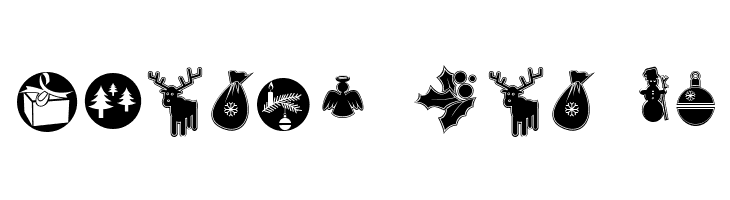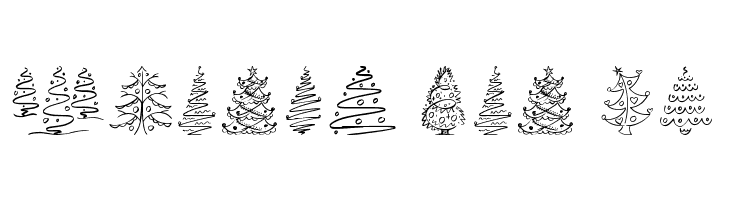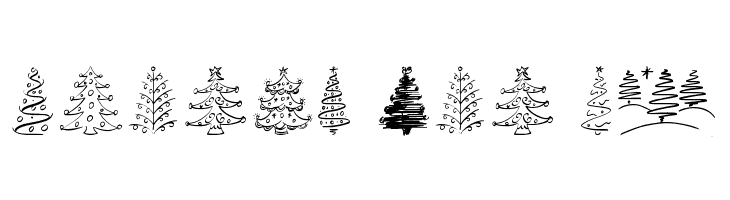
Ornamental font with detailed Christmas wreath illustrations.
A festive icon set with diverse Christmas motifs in a decorative style.
A festive, cursive font with elegant loops and swirls, perfect for holiday themes.
A festive, decorative font with holiday-themed embellishments.
A festive, cursive font with elegant loops and swirls, perfect for holiday themes.
A festive, ornament-adorned font perfect for holiday projects.
Hand-drawn Christmas doodle icon set.
A playful and festive font with bold, curvaceous letters perfect for holiday themes.
A festive, playful font with gift box icons, perfect for holiday themes.
A festive, decorative font with star patterns and hat-like accents on uppercase letters.
A festive handwritten script font with snowflake accents, perfect for holiday designs.
Hand-drawn Christmas doodle icon set.
Hand-drawn doodle font with Christmas and holiday illustrations.
A festive, flowing script font perfect for holiday-themed designs.
A bold, decorative font with holly leaf accents, perfect for festive designs.
A festive cursive script with Christmas tree decorations, ideal for holiday themes.
A festive script font with Christmas tree motifs on uppercase letters and numbers.
A festive, decorative font with star embellishments and Christmas symbols.
A festive, hand-drawn font styled like Christmas light bulbs.
Playful, bold Christmas-themed decorative symbol set.
A bold, festive display font with cloud or snow accents.
Festive, ornament-themed decorative font with a handwritten touch.
Bold, bubbly font with snow-topped letters for festive themes.
Festive, decorative display font with snowflake accents.
Bold, festive display font with snow-covered letters.
Festive, hand-drawn display font with Christmas motifs and bold outlines.
A decorative, festive script font with elegant swashes and high contrast.
Bold, festive display font with jagged, winter-inspired cutouts.
A festive serif font with snowflake embellishments, ideal for holiday themes.
A whimsical, festive font with star-like embellishments and playful cutouts.
No recognizable font is displayed.